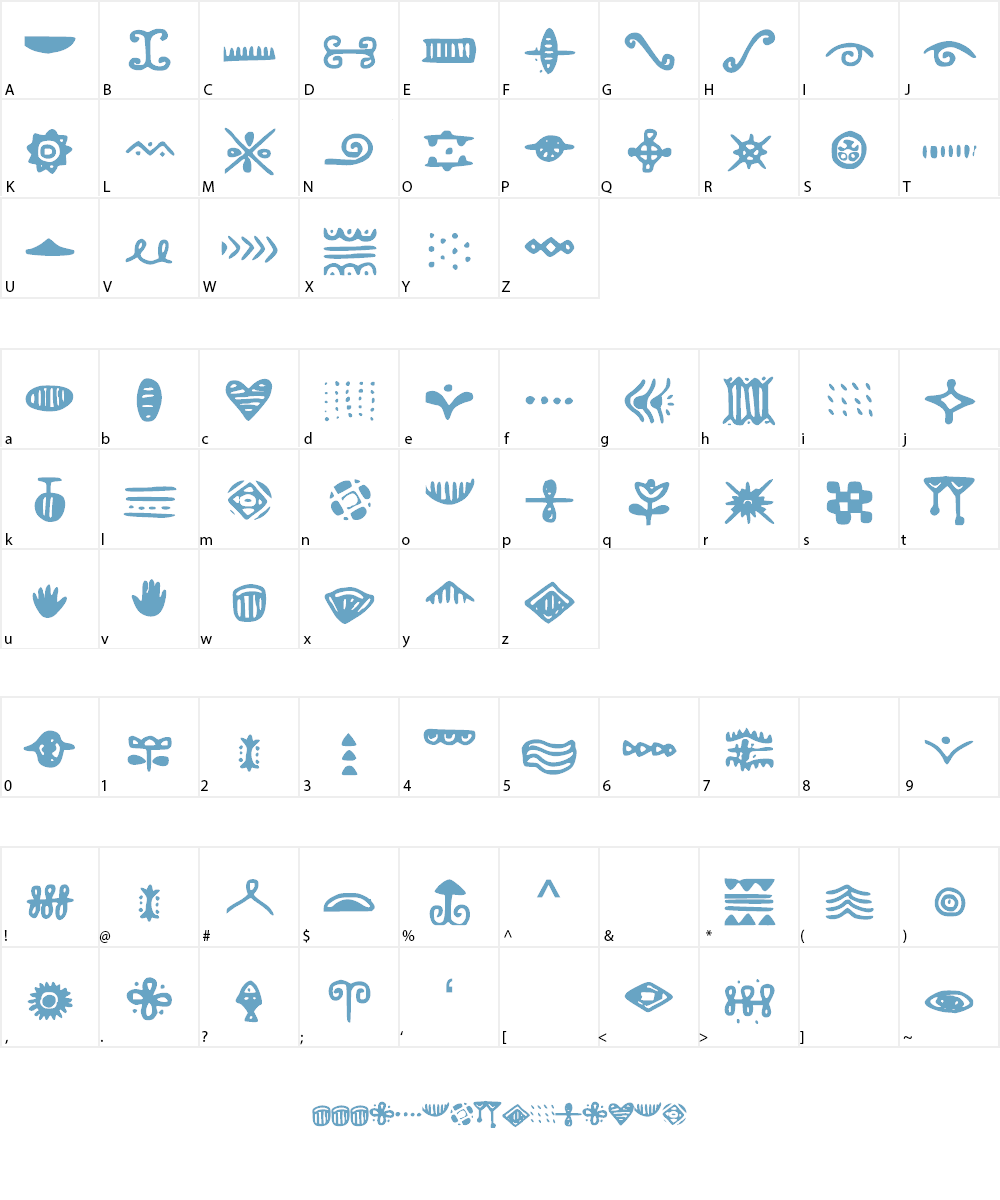
I'm sure you'll have fun using these dingbats. They are great to use for personal projects. Contact me if you want to use these for anything you will be paid for via my site http://calej.blogspot.com - there are loads of inspiration there waiting for you! Have fun!